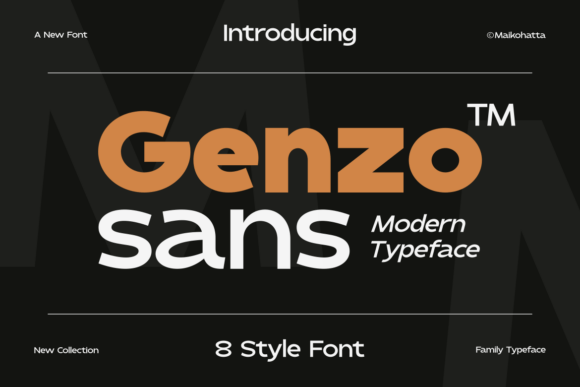
A New Era in Typography: Introducing Genzo Font
Do you remember that moment when a single font choice transformed your entire design project? Maybe it was a bold sans-serif that added an edge to your branding, or a delicate script that whispered elegance to your wedding invitations. For designers, the right font can make all the difference. And that’s exactly what we’re excited to introduce – Genzo Font, a modern sans-serif typeface designed to elevate your graphic design projects.
With its clean lines and versatile styles, Genzo Font is the perfect choice for designers who want to create visually appealing and easy-to-read text displays. Whether you’re working on a corporate website, a mobile app, or a print brochure, Genzo Font’s various styles will help you customize the appearance of text to suit your project’s needs.
Genzo Font Key Features
- Unique Characteristics: Genzo Font features a unique blend of traditional and modern design elements, with intricate details and subtle texture, giving it a distinctive and eye-catching appearance.
- Font Style: Genzo Font comes in multiple styles, including Regular, Italic, Bold, and Bold Italic, allowing designers to create a range of visual effects and emphasize different parts of the text.
Review of Genzo Font
I recently had the opportunity to work with Genzo Font, and I must say, it’s a font with both its strengths and weaknesses. Let’s dive in and explore what works well and what doesn’t.
- The Genzo Font has a unique and modern design that’s perfect for branding and digital products. Its clean lines and rounded edges give it a friendly and approachable feel.
- The font is highly legible, even at small sizes, making it ideal for mobile and web applications.
- The font family includes a wide range of weights and styles, allowing for a high degree of customization and flexibility.
- The font may not be suitable for formal or traditional designs, as it’s quite modern and edgy.
- The font family could benefit from additional language support, particularly for non-Latin scripts.
- Some users may find the font too playful or cartoonish for certain applications.
The Genzo Font is a solid choice for designers looking for a modern and versatile font family. While it may not be perfect for every project, its strengths make it a great option for branding and digital products. With some tweaks and additions, I believe the font has the potential to become even more comprehensive and appealing to a wider range of designers.
Genzo Font is a versatile font that can be used for a variety of applications, including logos, branding, and typography-based designs. Some common use cases include:
- Creating a unique logo or brand identity
- Designing a brochure or marketing materials
- Creating a website or web application